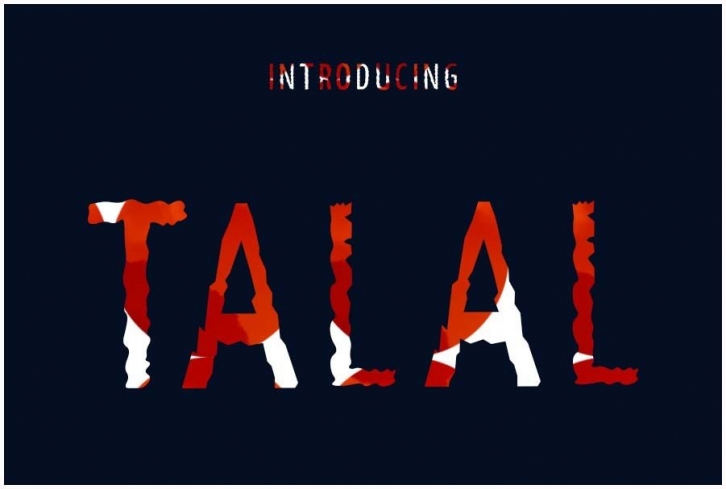
Talal FONT Download
It’s a modern calligraphy typeface, which combines the style of classic calligraphy with a modern style. combines from copperplate to contemporary typeface with a dancing baseline, modern and elegant touch.